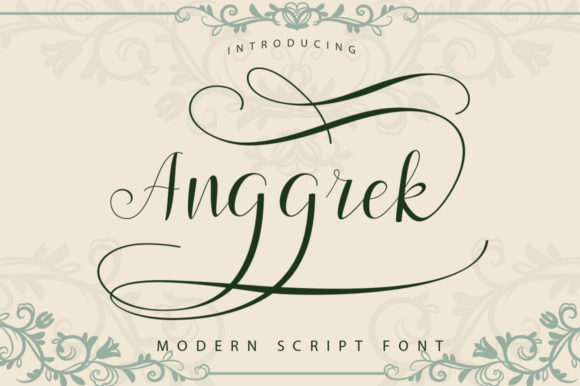
Dive into the world of Anggrek Font, a captivating script font designed to leave an indelible mark on your visual creations. Its irregular baseline and alluring curves lend an air of elegance and sophistication, evoking a sense of timeless beauty. Whether you're a seasoned designer or just starting out, Anggrek Font is your gateway to crafting designs that captivate and inspire.
Unleash your creativity and let Anggrek Font guide you as you craft wedding invitations that exude romance and charm, thank-you cards that convey heartfelt gratitude, and quotes that resonate with depth and meaning. Its versatility extends to greeting cards, logos, and business cards, lending a touch of distinction to every project you undertake.
With Anggrek Font, you'll discover a font that dances across your screen, its graceful strokes flowing effortlessly, creating compositions that captivate and enchant. Each letterform is meticulously crafted, exuding personality and charm, ensuring your designs stand out from the ordinary.
Embrace the allure of Anggrek Font and watch as your designs blossom into works of art. Let its modern script style transport you to a realm of creativity where imagination knows no bounds. Explore the limitless possibilities and elevate your projects with a font that speaks volumes.